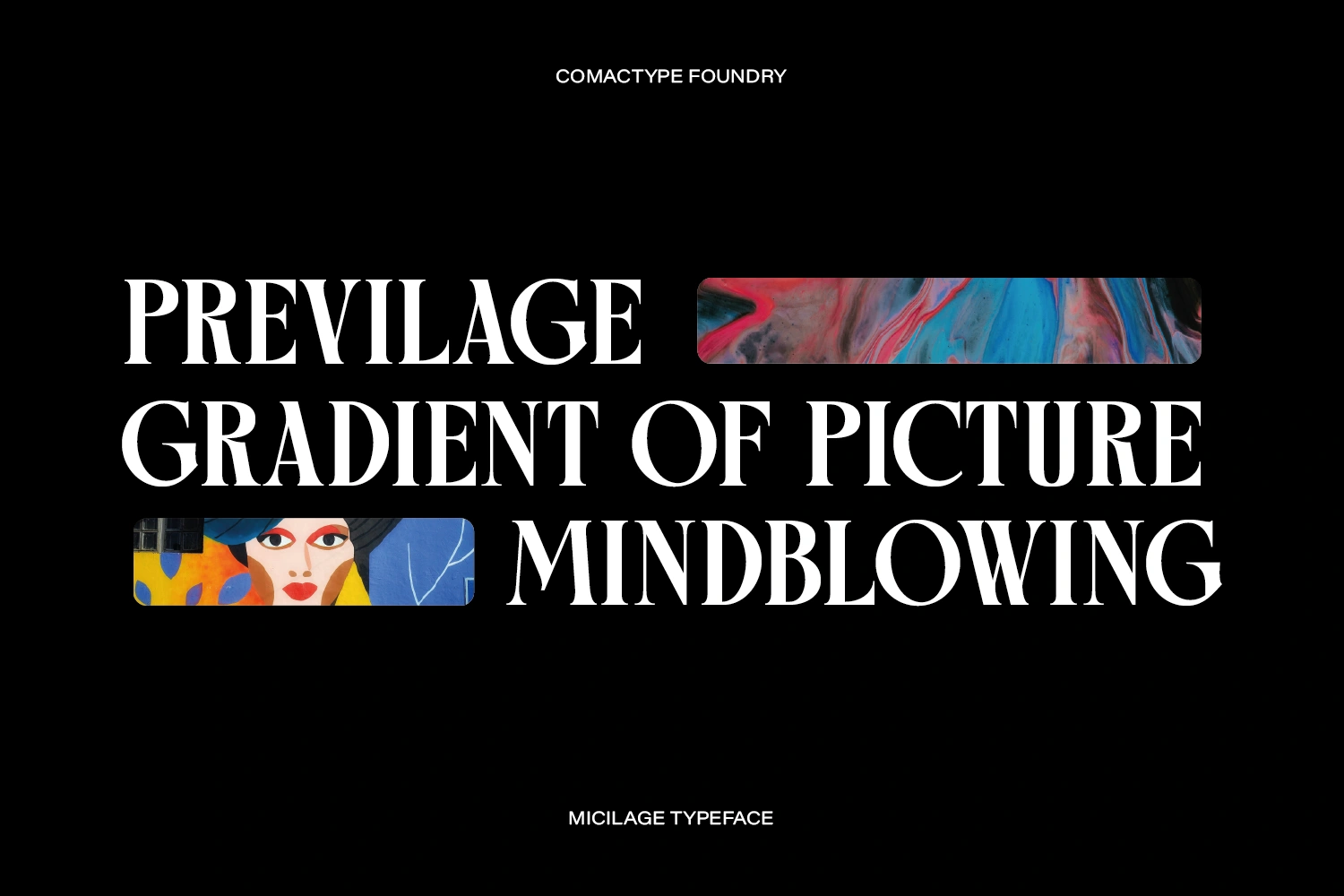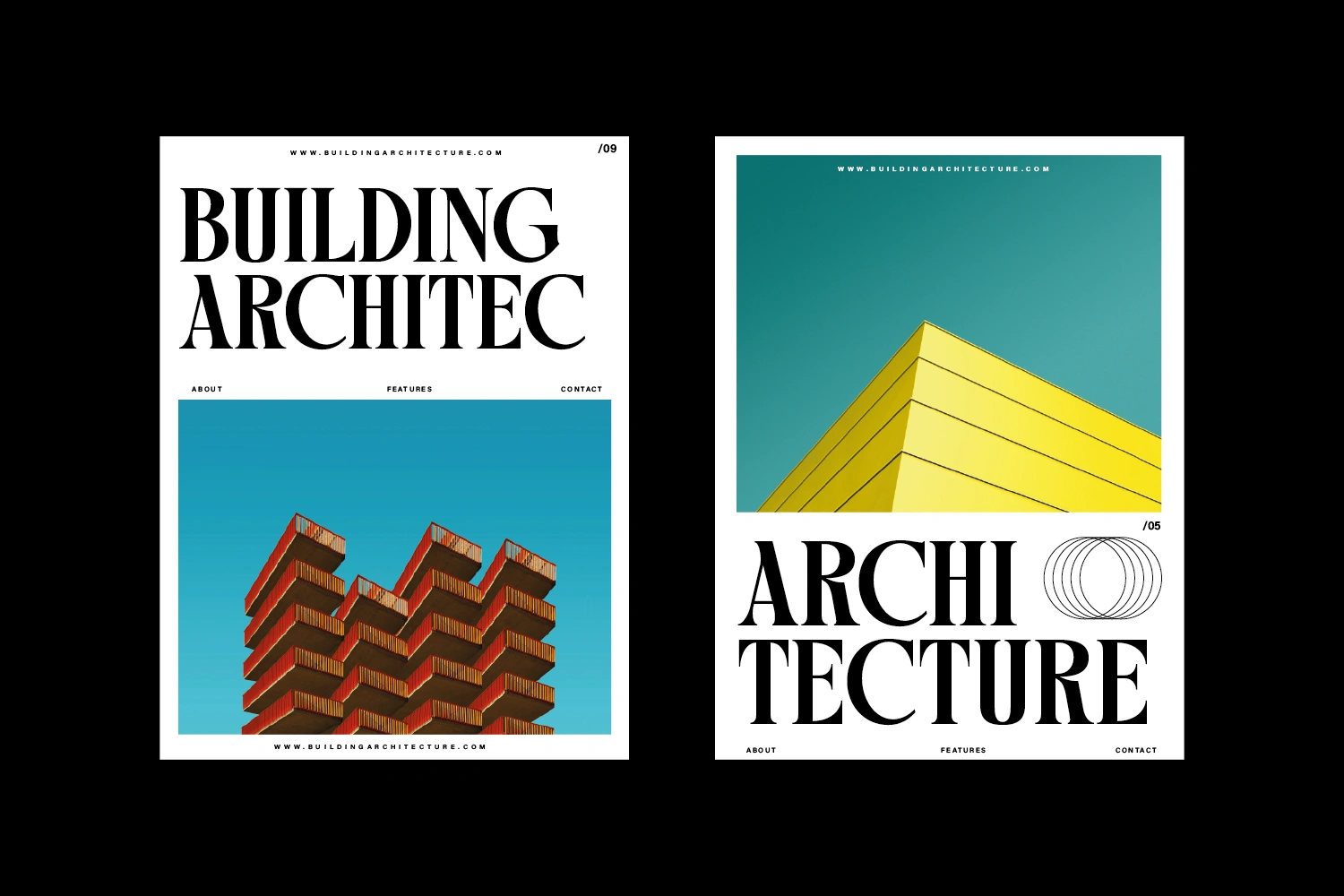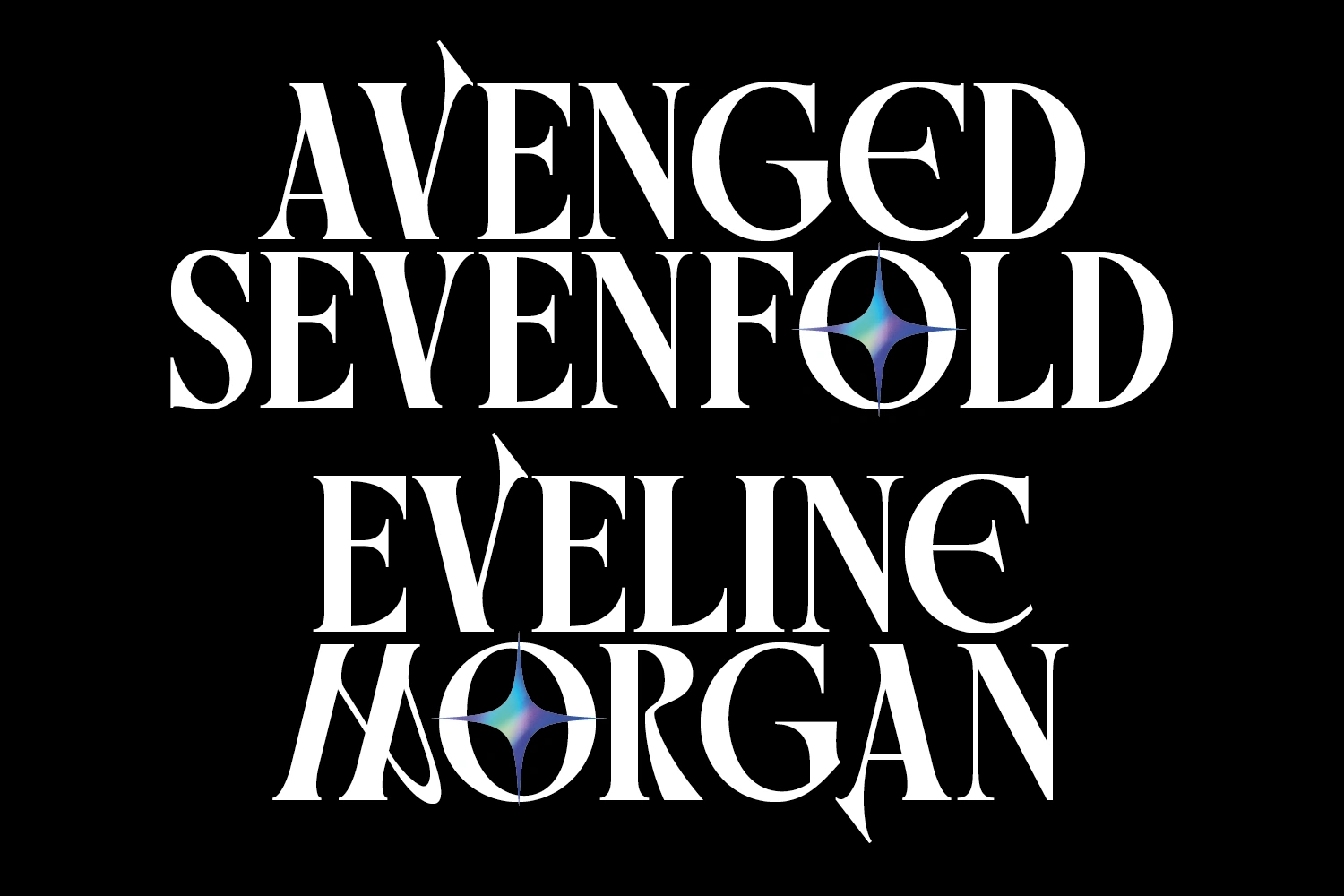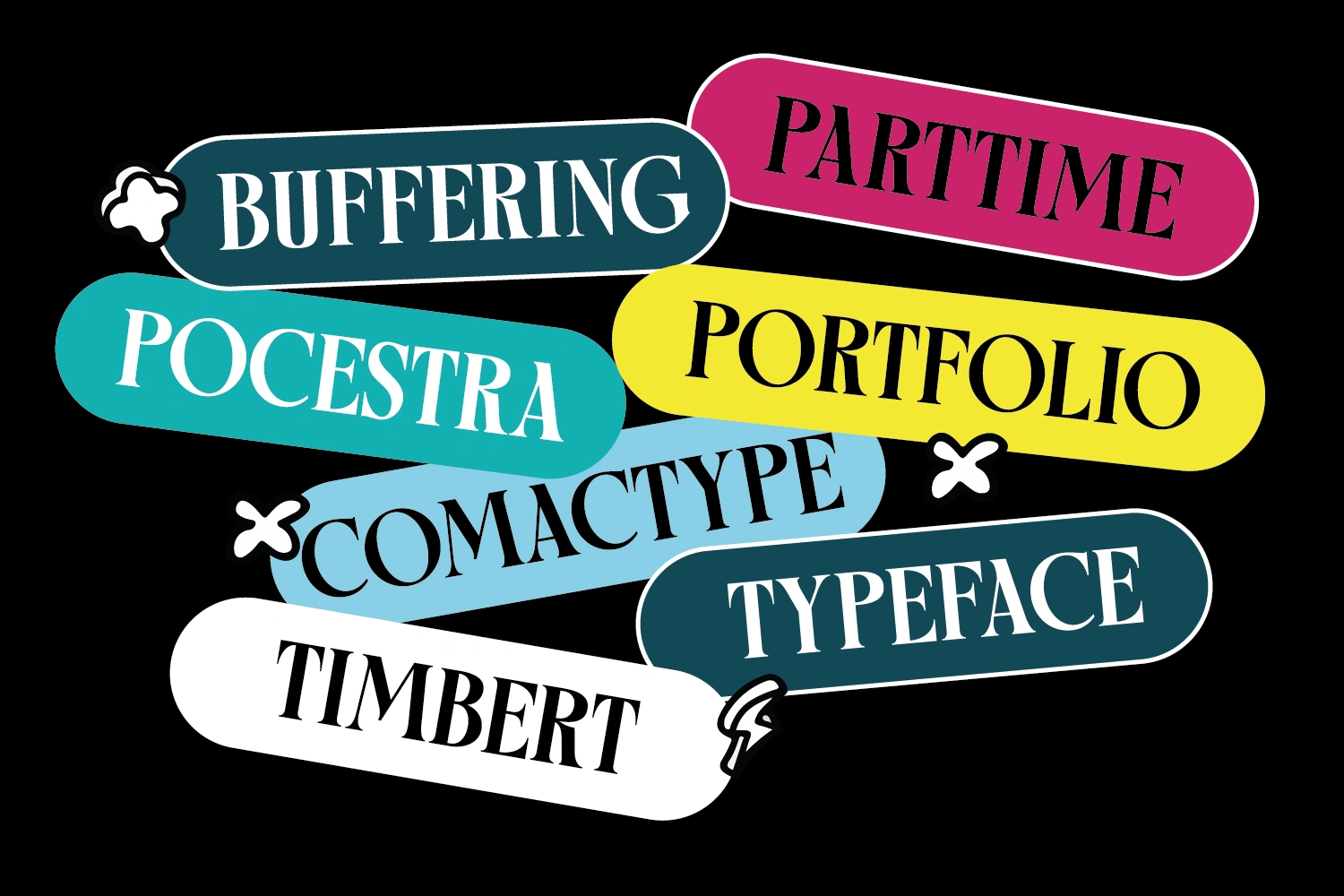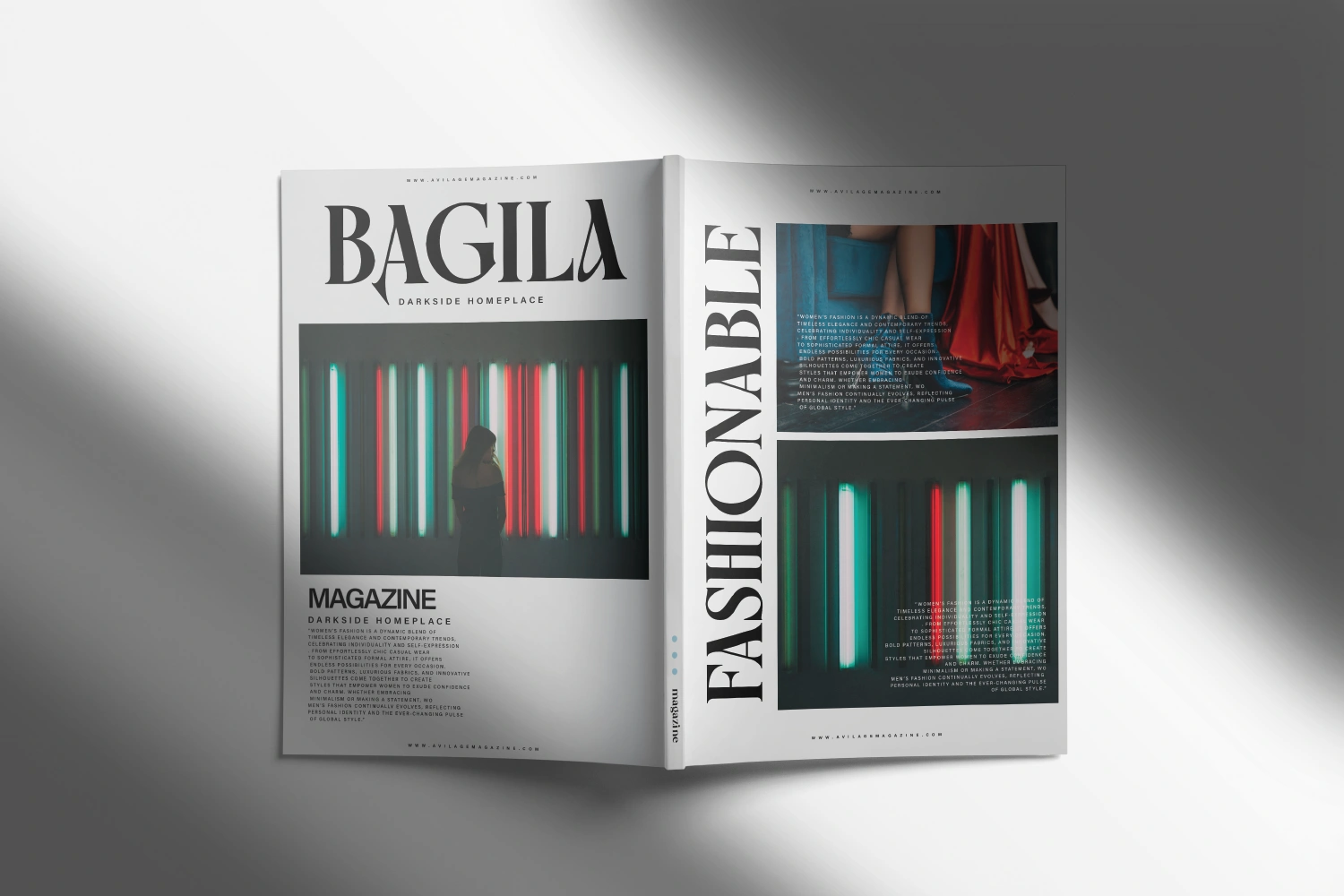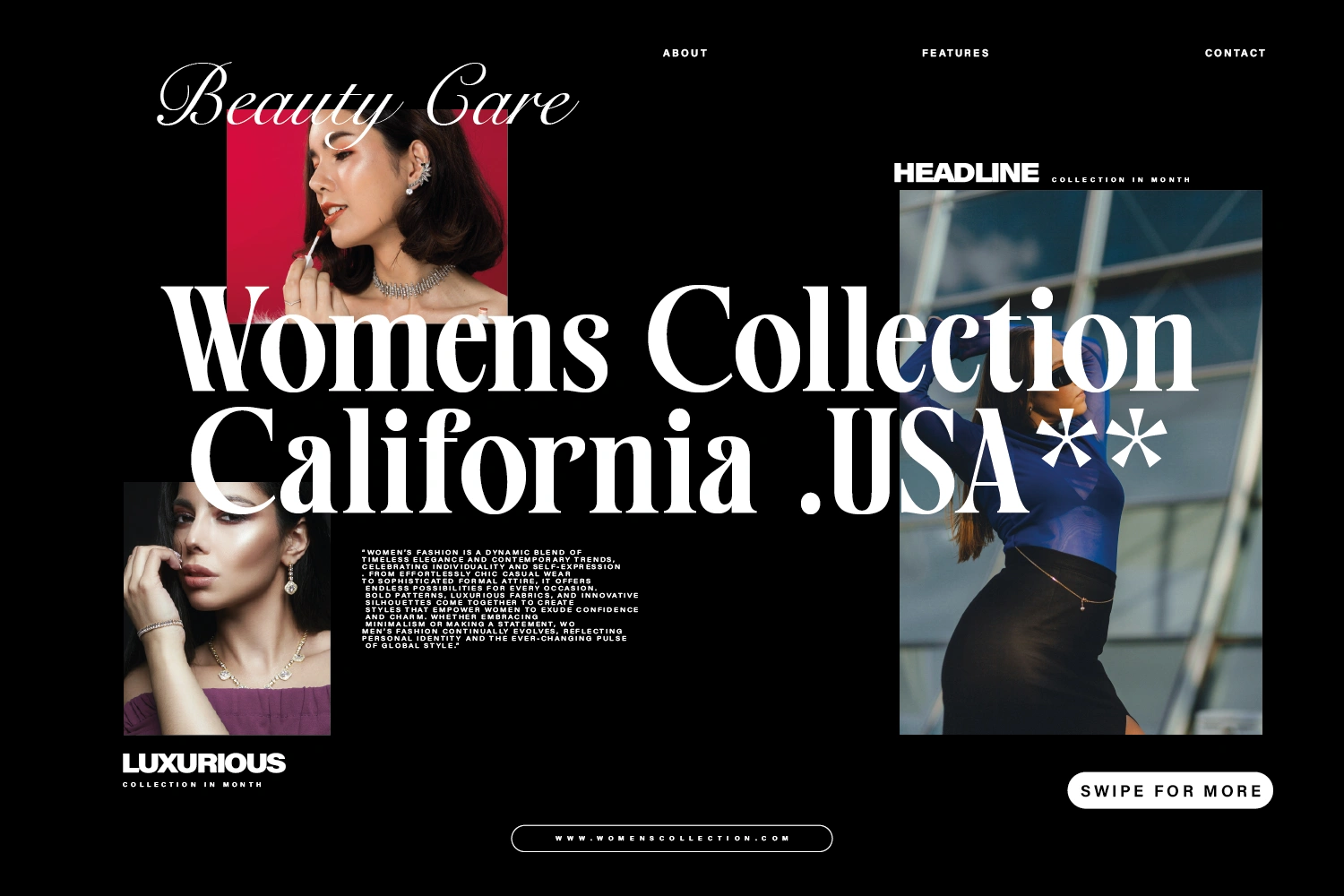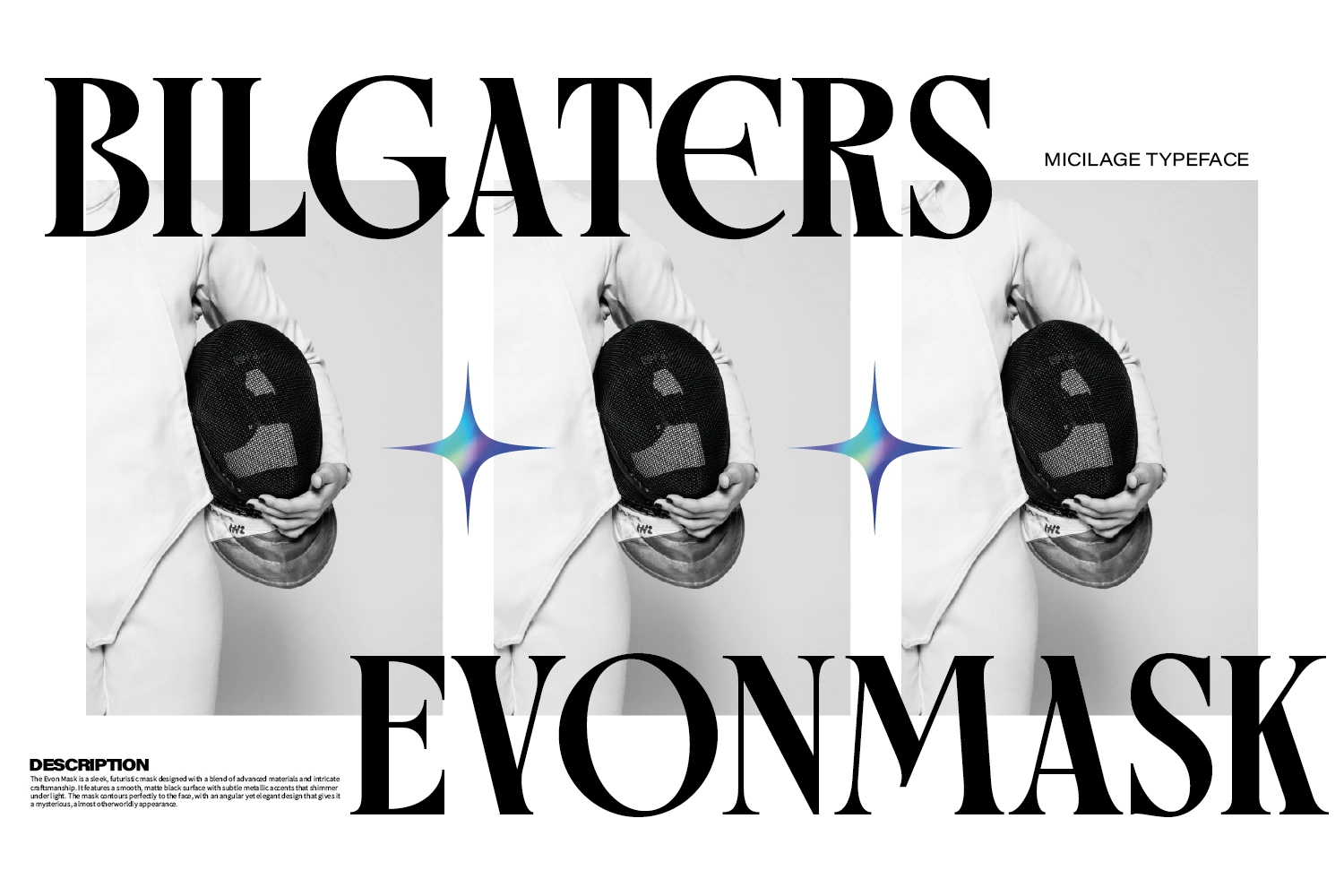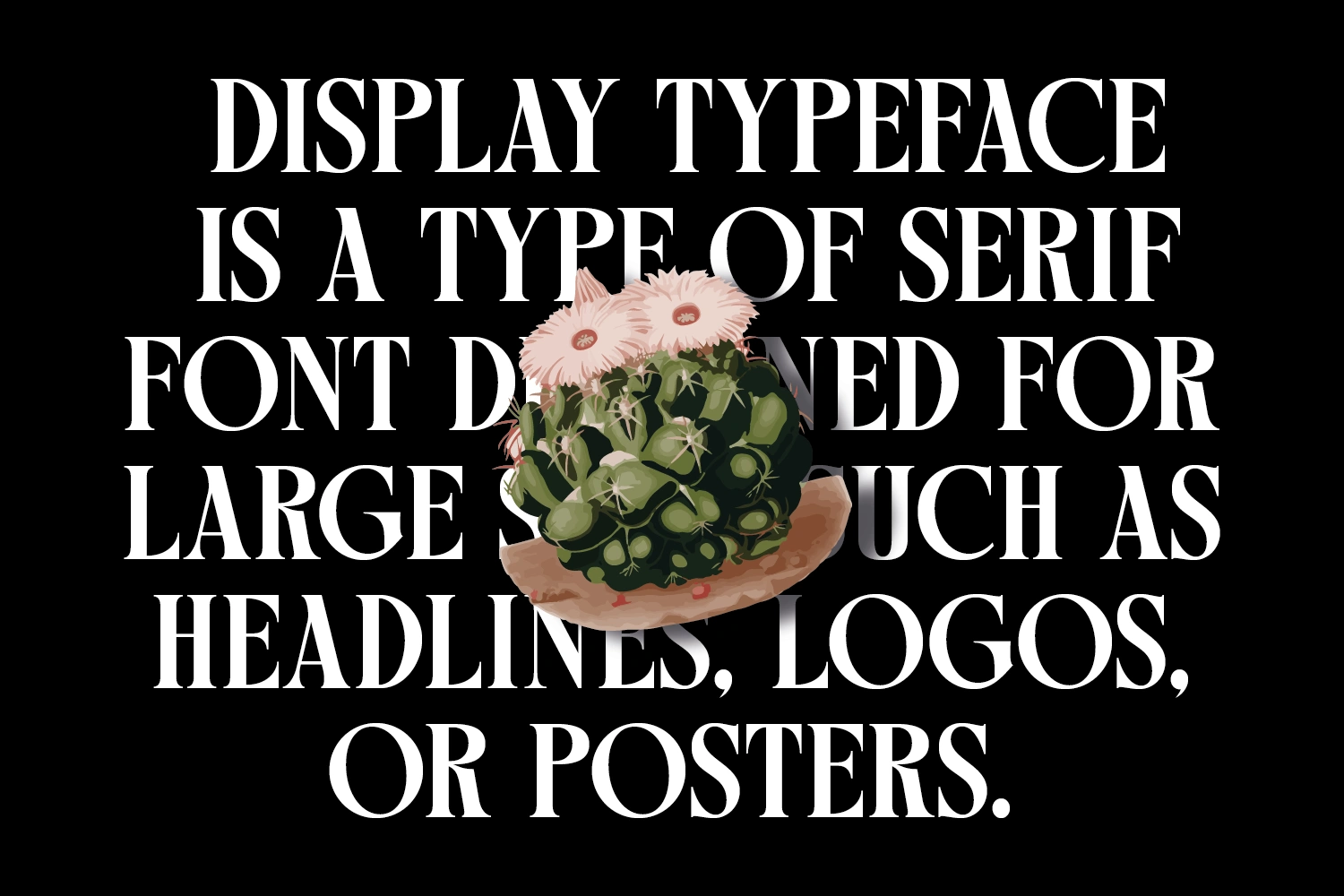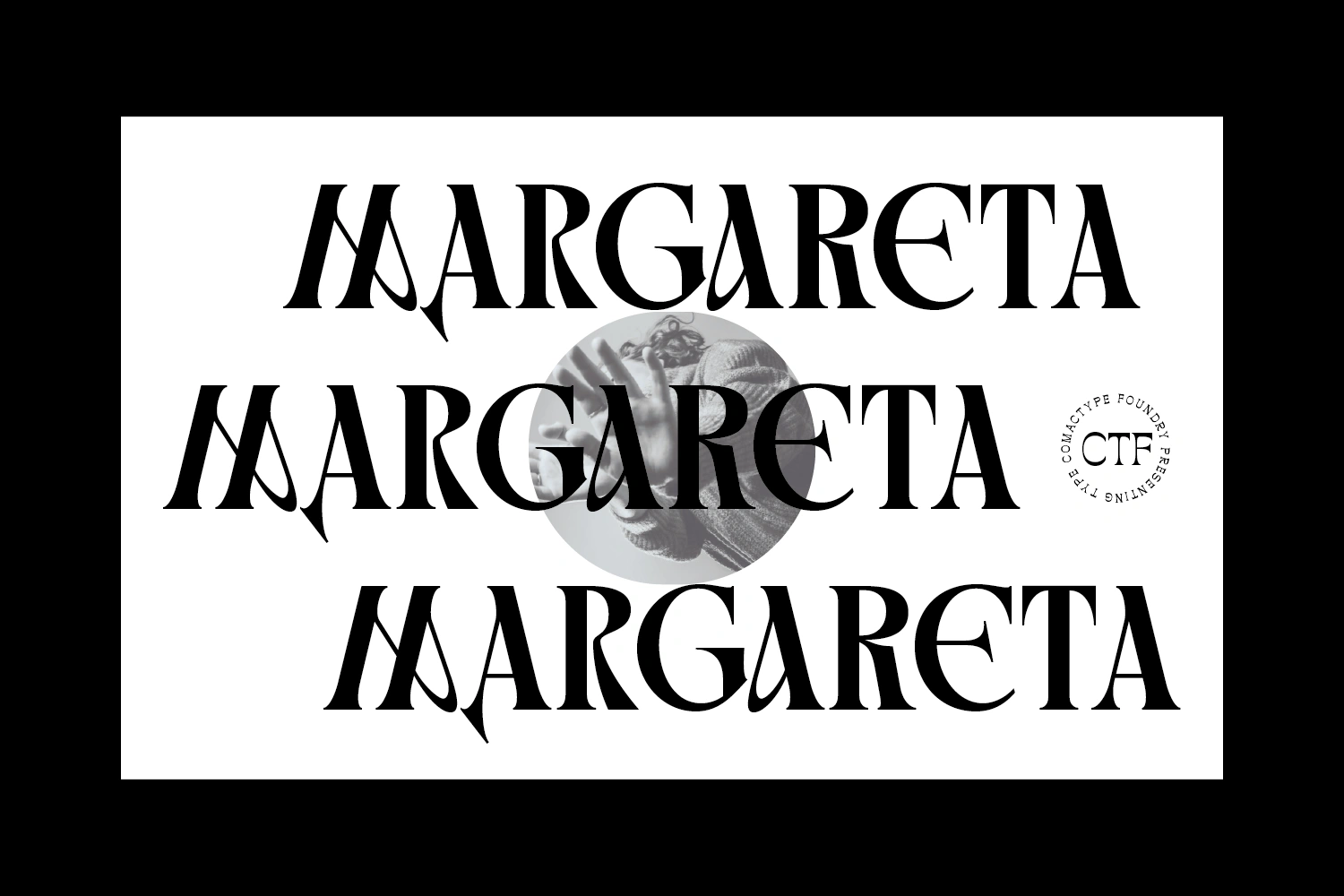
MICILAGE is a serif display font designed by Comac Type Foundry
Characterized by elegance, high contrast between thick and thin strokes, and unique decorative elements such as swashes on certain uppercase letters.
Designed for large-scale use in headlines, logos, and posters, this font exudes a classic, luxurious, and bold impression. Its lowercase letters have a sturdy form with thick serifs, while the uppercase letters showcase dynamic variations that enhance its modern aesthetic with a retro touch.
Perfect for designs that prioritize a sophisticated and artistic look.